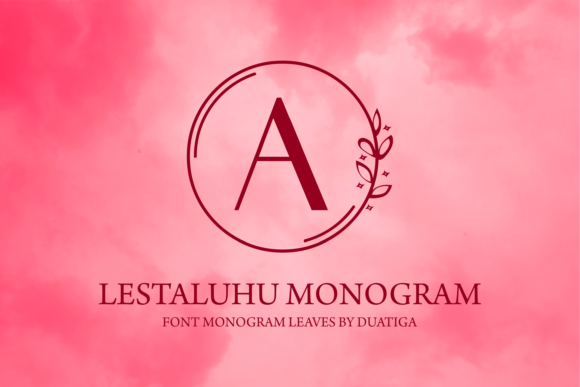
Step into the enchanting world of Lestaluhu Font, where beauty and elegance dance in perfect harmony. This extraordinary decorative font will transform your creative visions into captivating masterpieces.
With every stroke of your keyboard, Lestaluhu Font paints a picture of pure elegance. Its intricate floral ornaments, meticulously crafted by the skilled hands of Duatiga, add a touch of whimsy and charm to any design. Its bold and alluring presence commands attention, making it the perfect choice for projects that demand a sophisticated flair.
Envision your wedding invitations adorned with the delicate grace of Lestaluhu Font. The names of your loved ones will be etched in timeless beauty, forever cherished as a reminder of your special day. Thank you cards will become heartfelt expressions of gratitude, blossoming with the warmth of Lestaluhu's floral embrace.
Quotes, greeting cards, and logos will take on a new life, imbued with the enchanting allure of Lestaluhu Font. Each word will be a masterpiece, carrying the weight of emotion and the promise of inspiration. Business cards will transform into elegant calling cards, leaving an unforgettable impression on potential clients.
Every design, no matter how grand or intimate, deserves the transformative touch of Lestaluhu Font. It is a font that speaks to the heart, evoking emotions and creating a lasting impact. Unleash your creativity and let Lestaluhu Font guide you to new heights of design excellence.